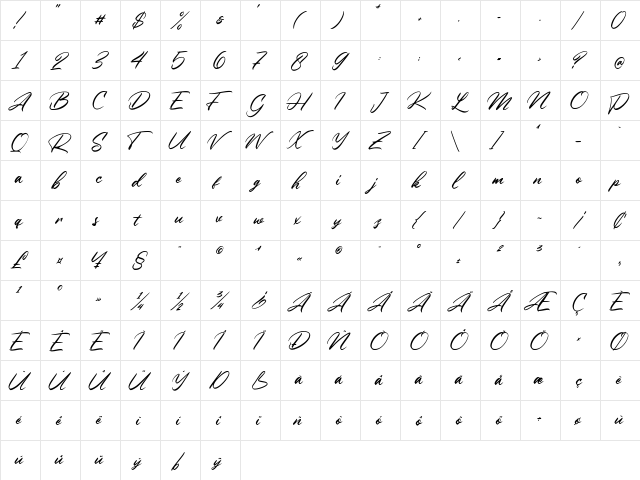
Winsberg Regular
| Foundry | Garisman Studio |
| Designer | Risman Ginarwan |
Design Context for Winsberg Typeface
Winsberg is a composed and adaptable typeface that performs quietly and consistently across a wide range of design contexts.